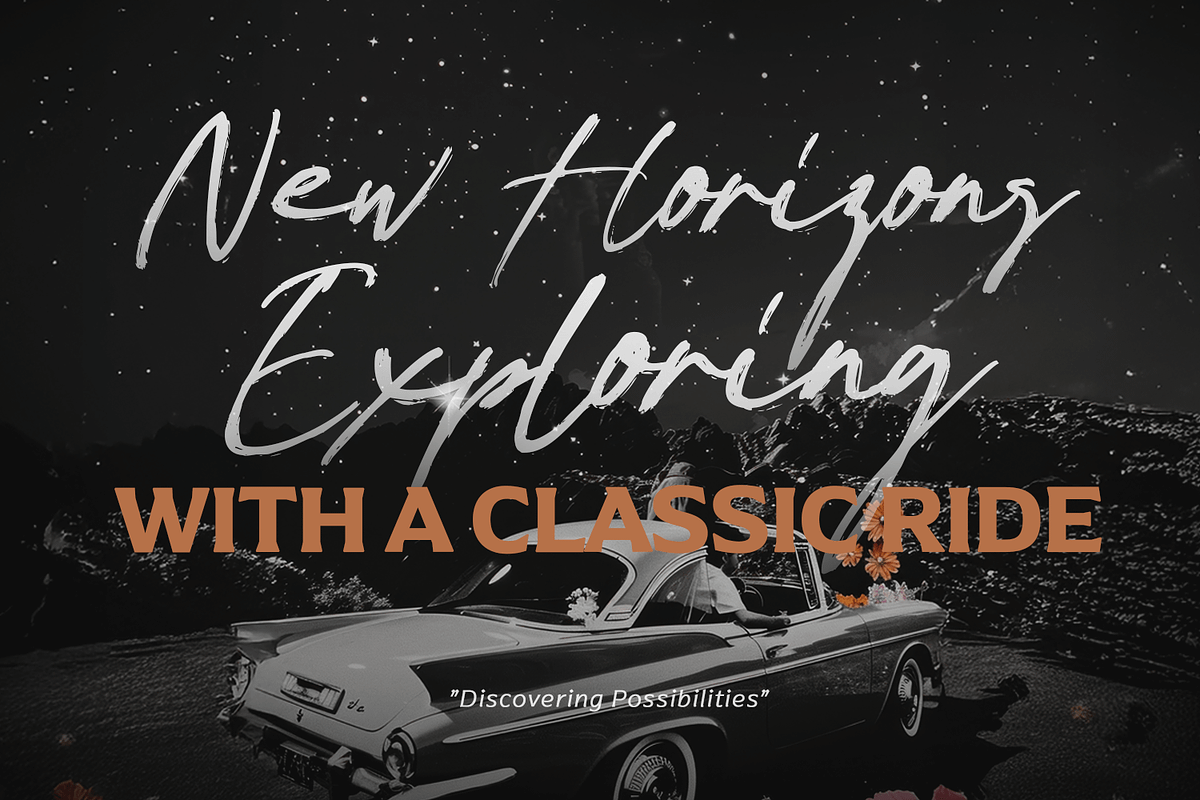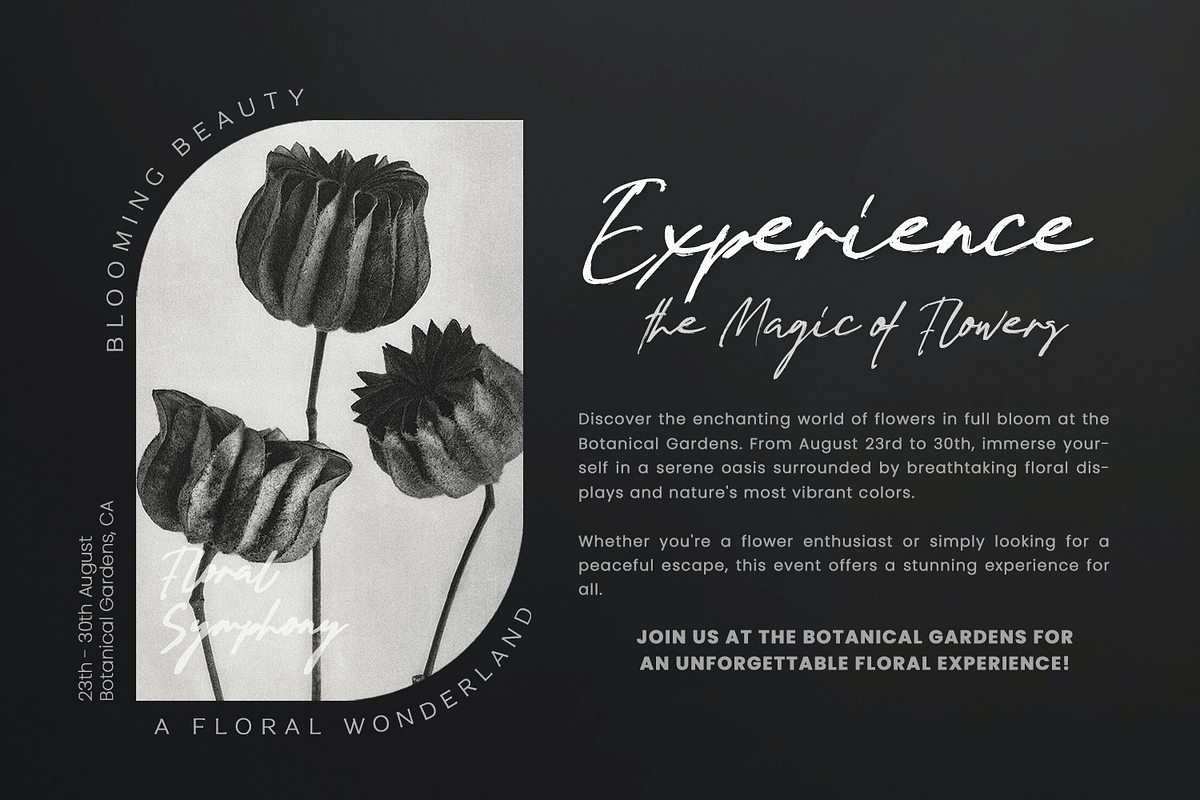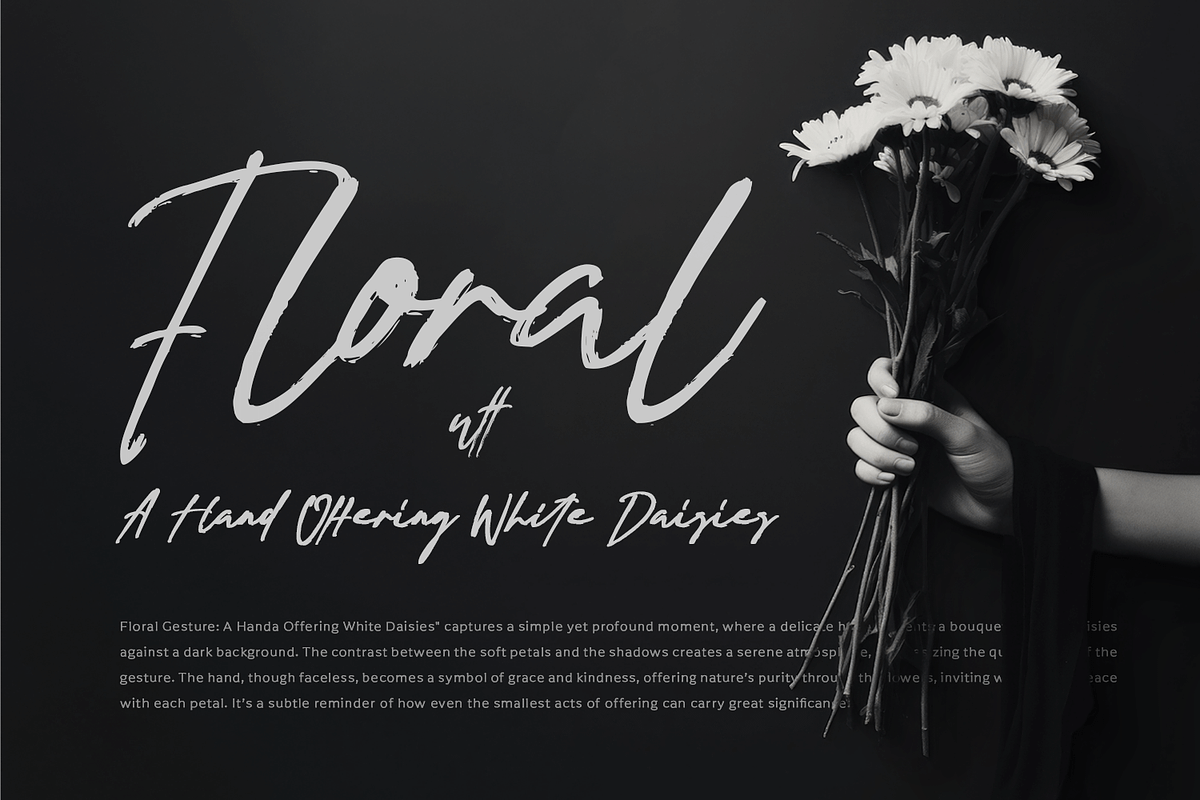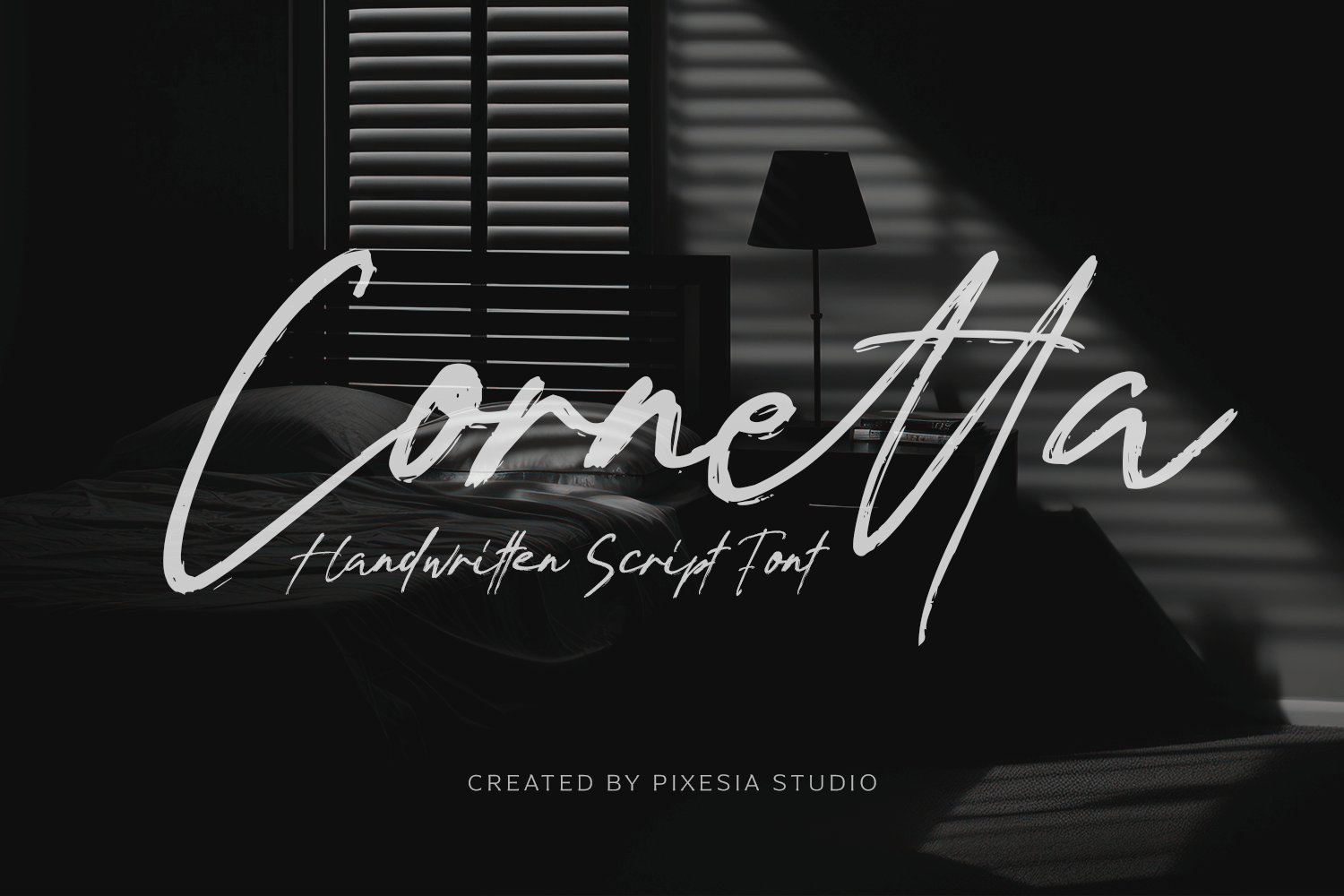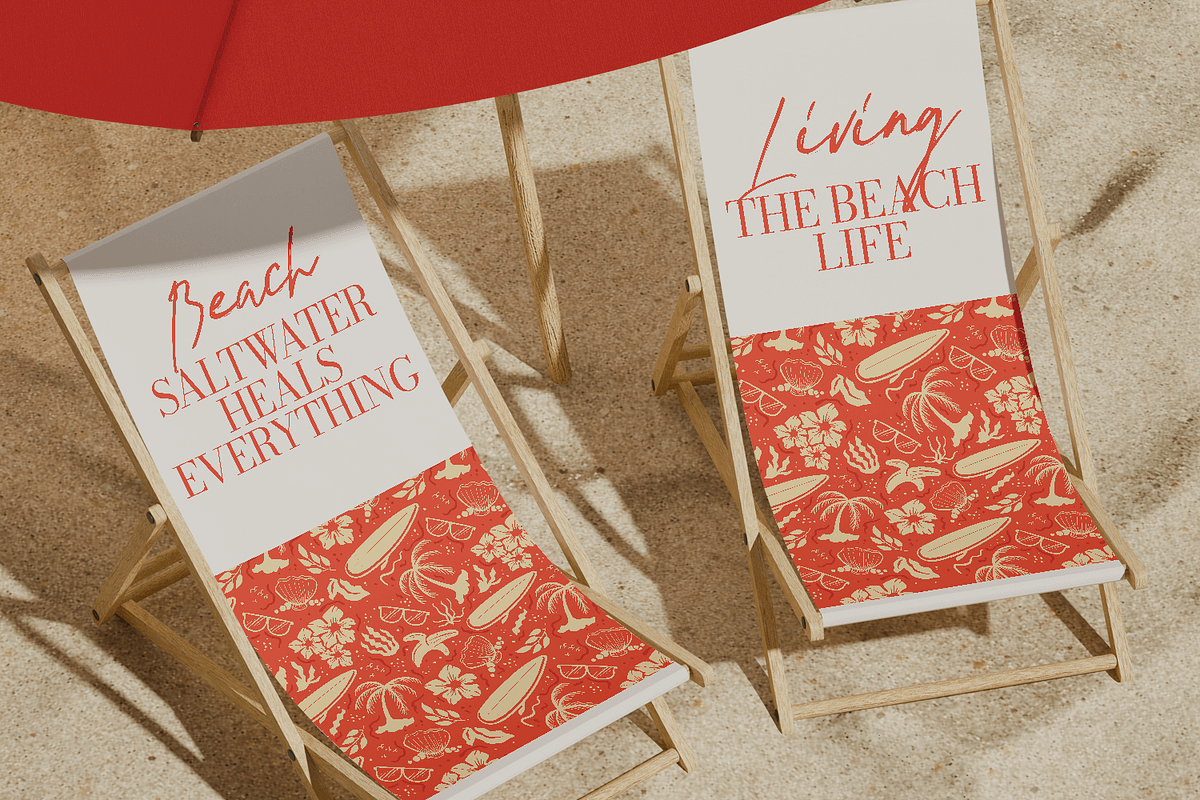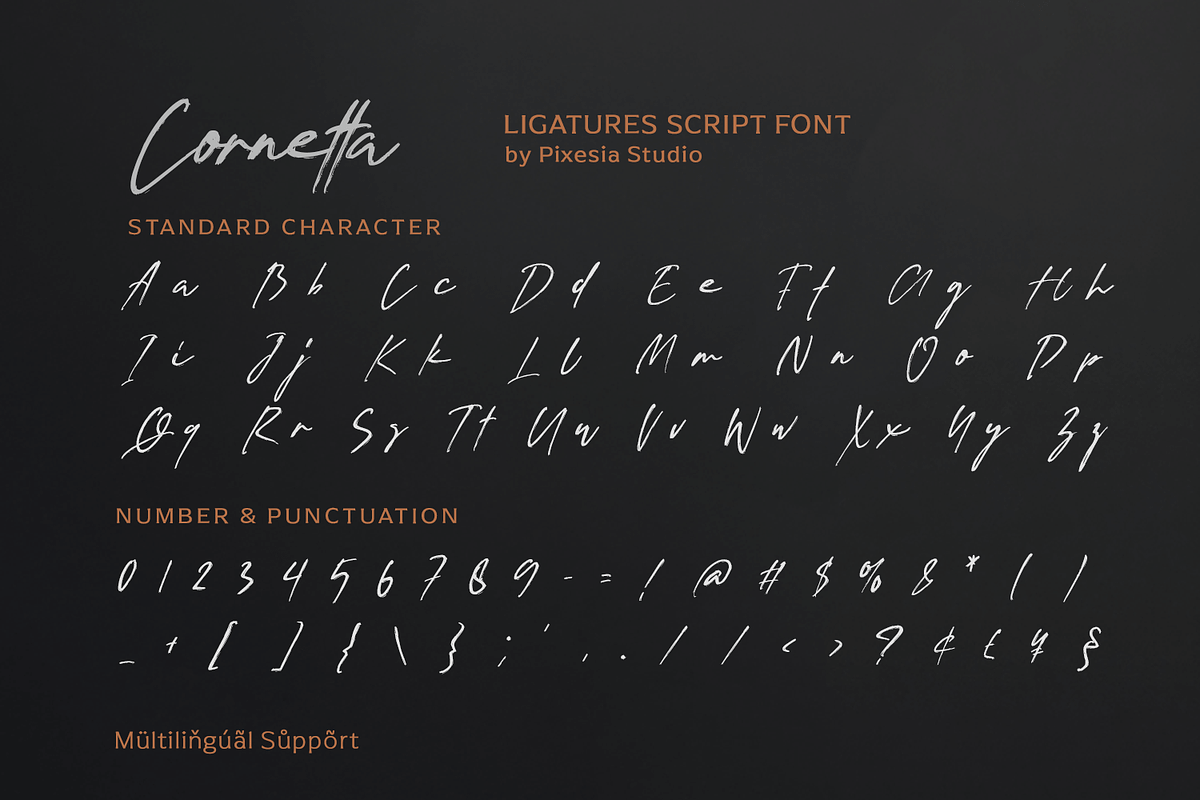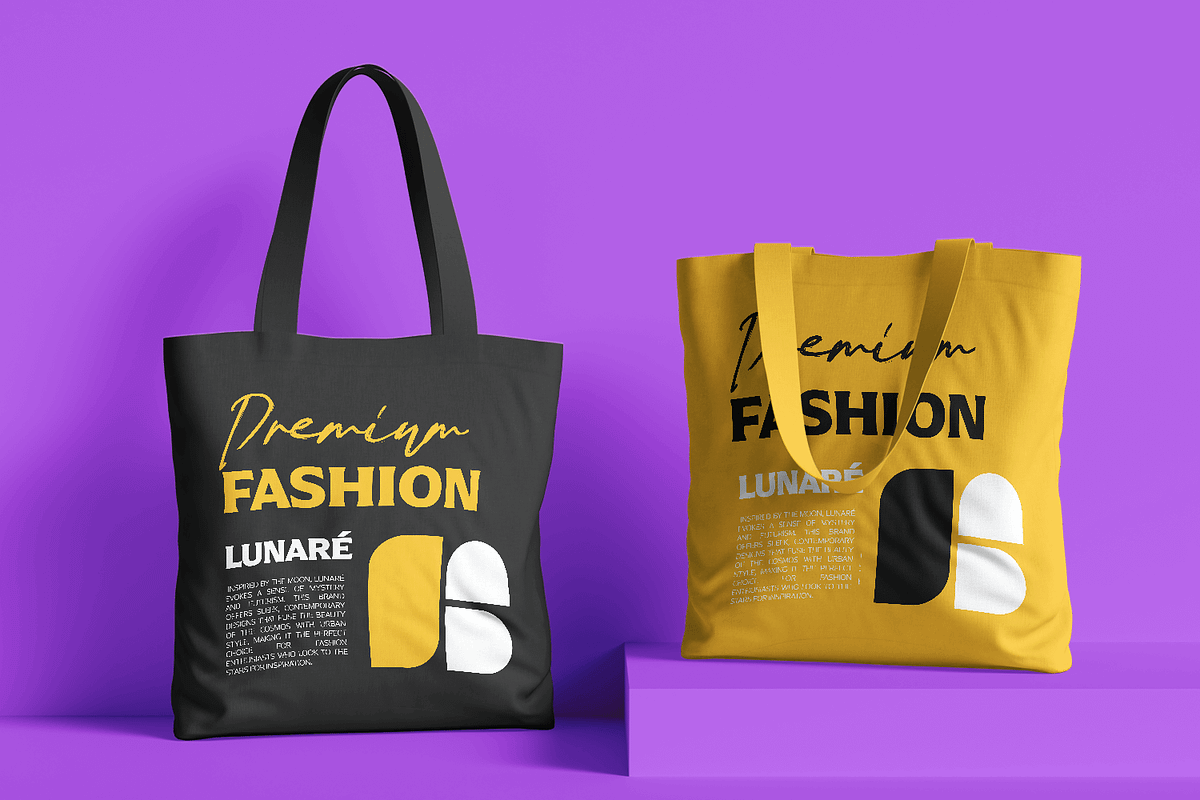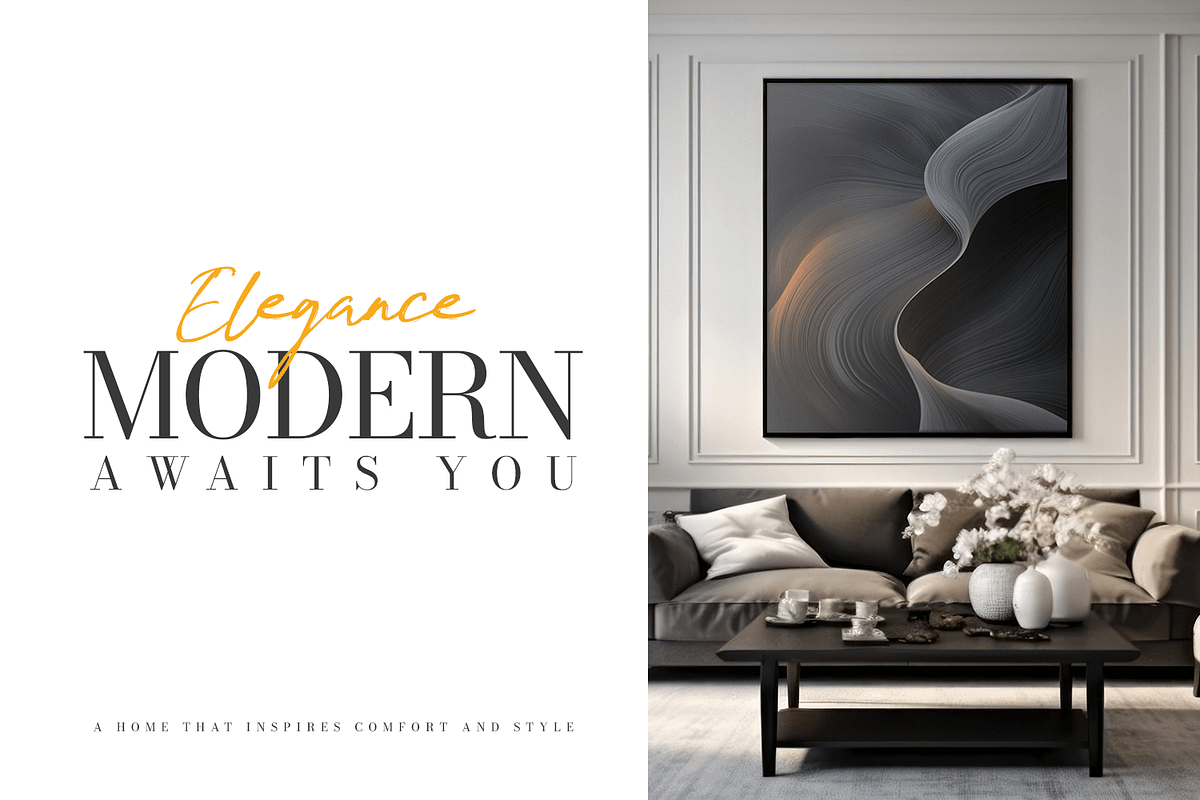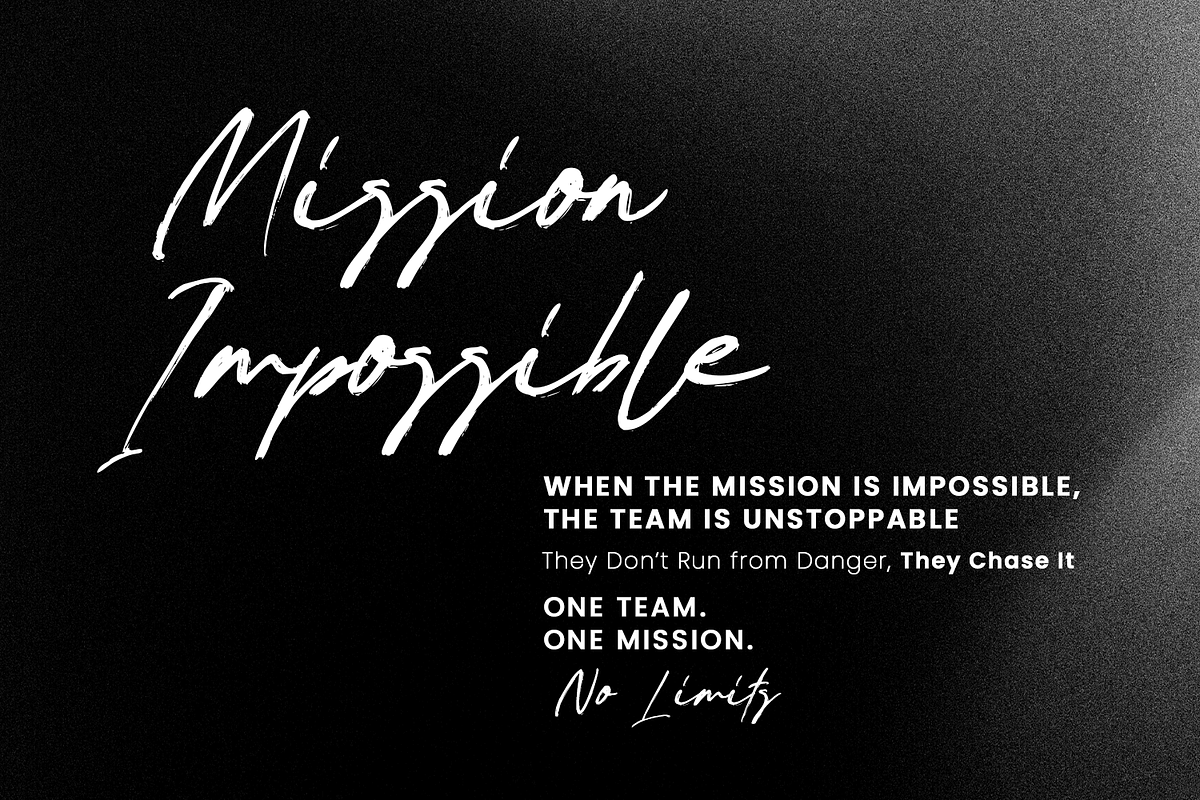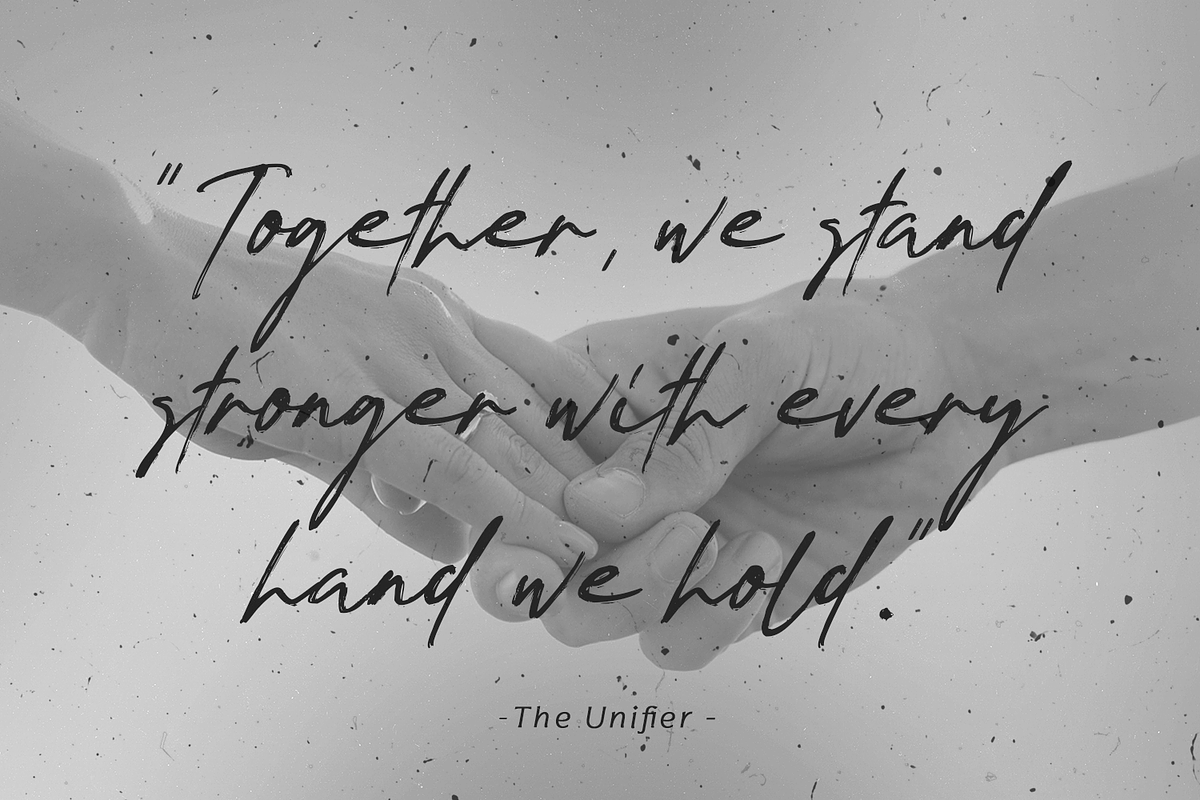
Cornetta – Handwritten Script Font
Introducing Cornetta – Handwritten Script Font
Cornetta is a raw and expressive script font designed with bold strokes and authentic hand-painted textures. Its natural flow and artistic imperfections give it a dramatic edge, making it perfect for designs that demand individuality and impact.
Cornetta is ideal for branding, logos, posters, book covers, product packaging, album artwork, social media graphics, and any project that seeks a striking handwritten style with a modern artistic feel.